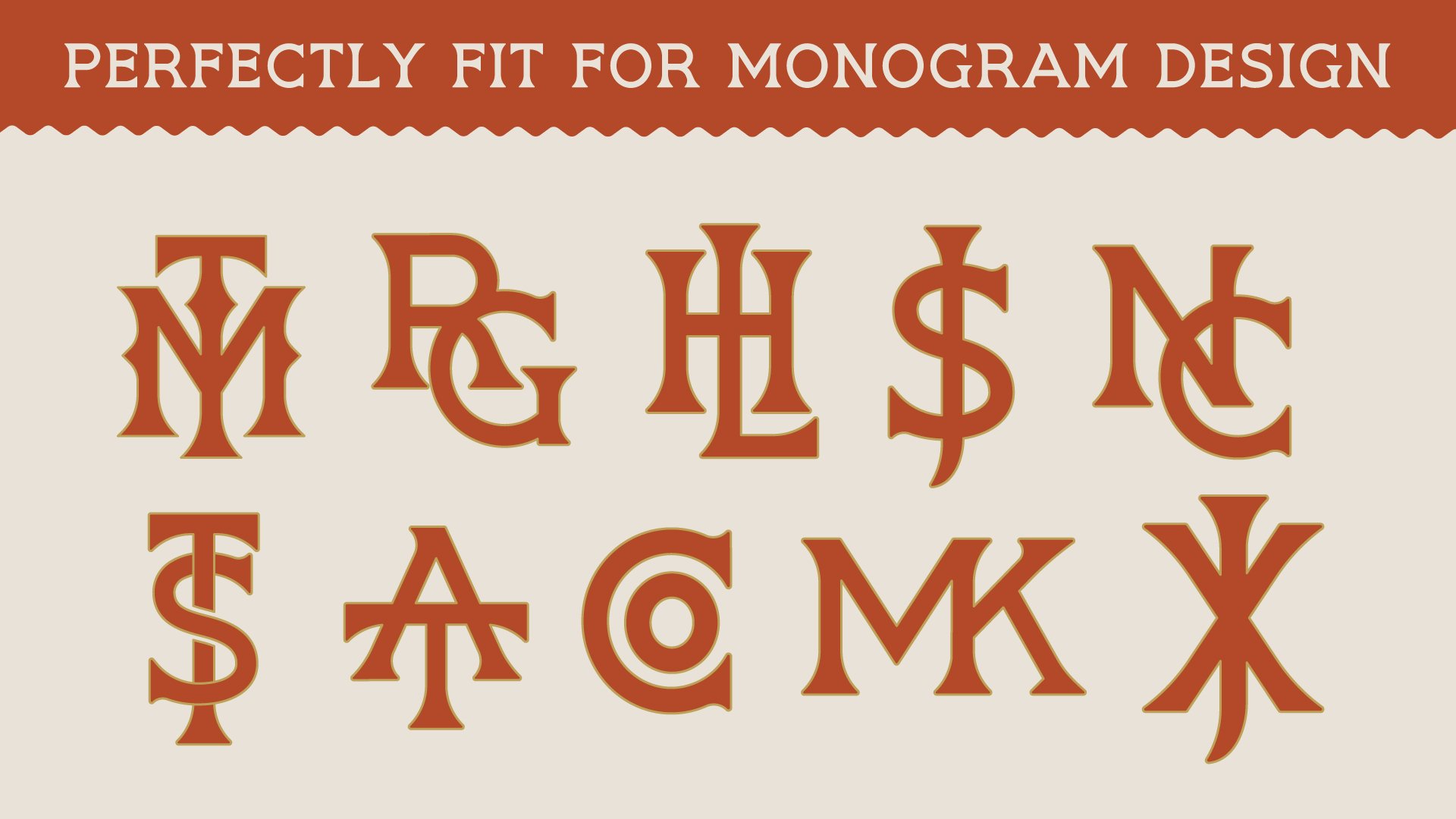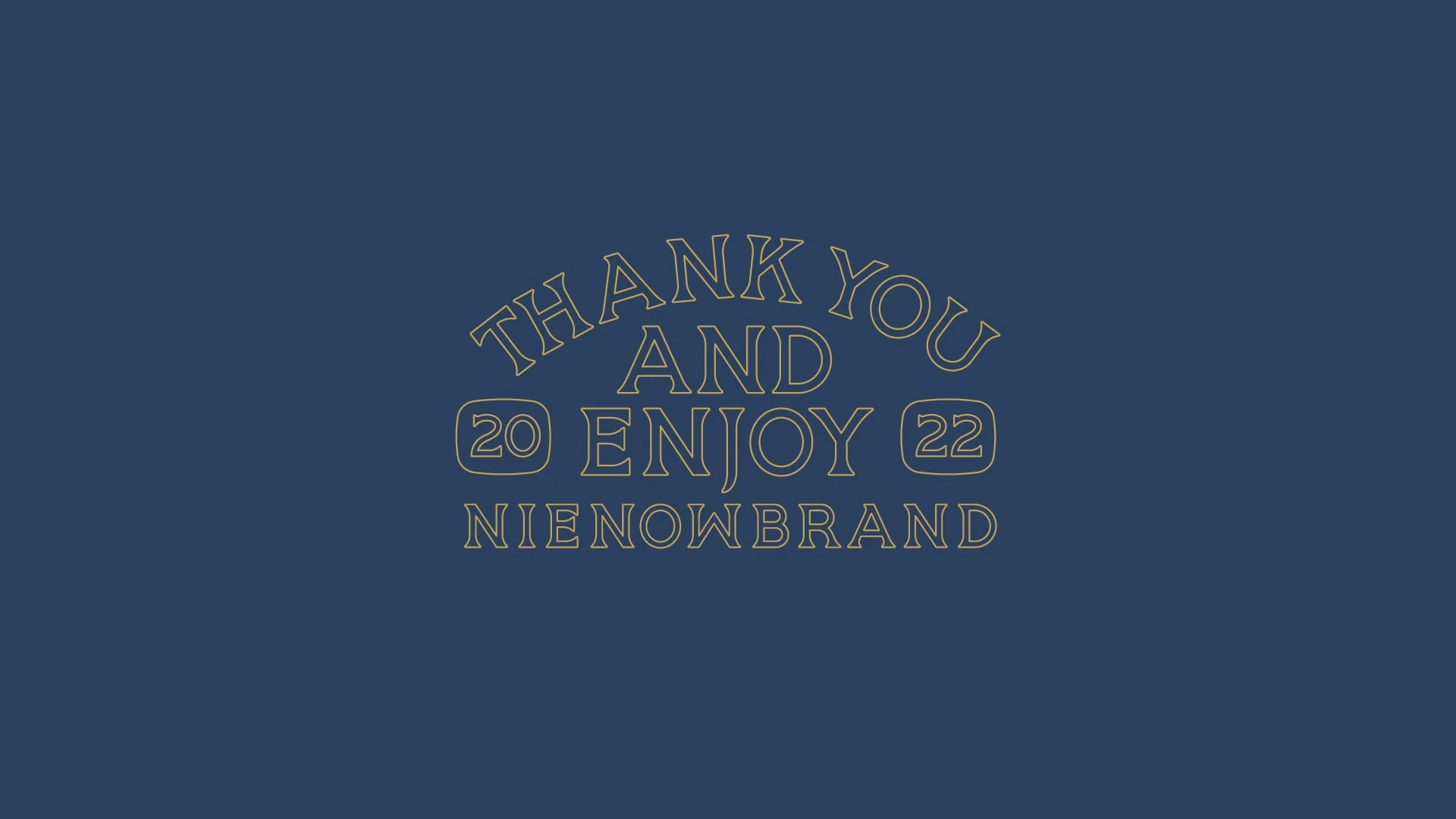
Highline Typeface
HIGHLINE 2.0 is here and now includes full numbers and punctuation along with 6 badge templates and a chain brush for illustrator.
The HIGHLINE font received it’s name from the high crossbar features shown off in the font. HIGHLINE showcases curved serifs built on a monoline font, making the font suited well for monogram logos. The HIGHLINE font family features 5 unique styles that compliment any retro or modern design or logo.